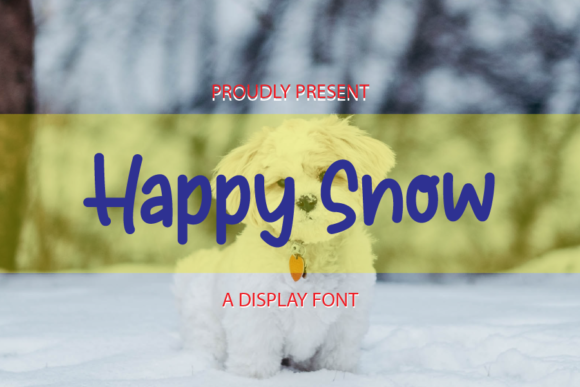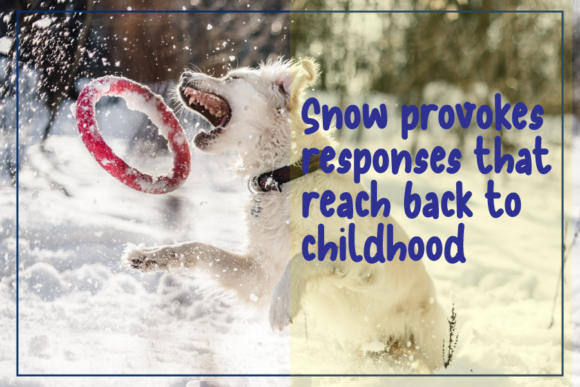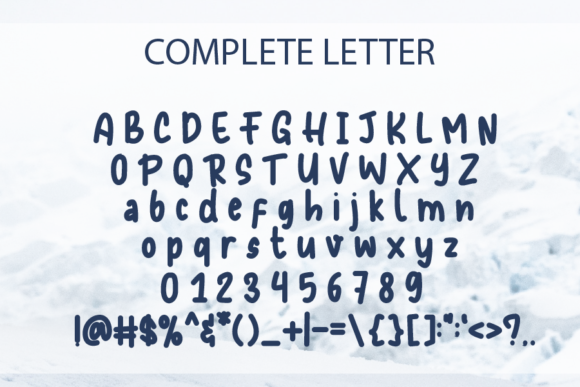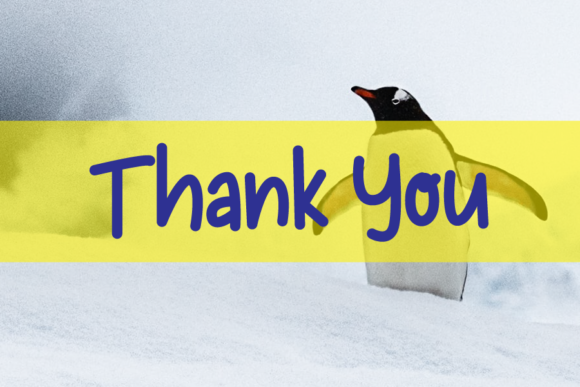
Happy Snow Font
About Happy Snow Font
Happy Snow is a modern and neat handwritten font. Whether you’re using it for crafting, digital designing, presentations or greeting cards making, it’s perfect!